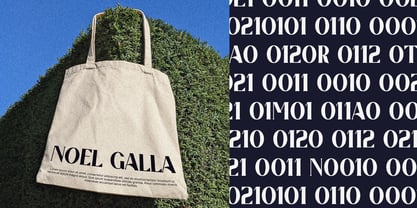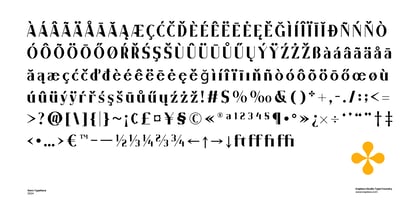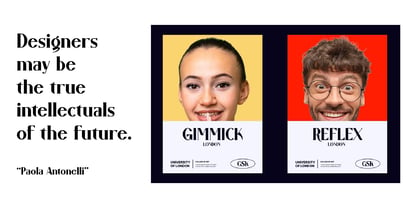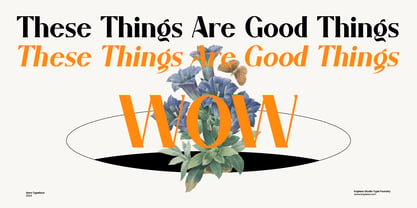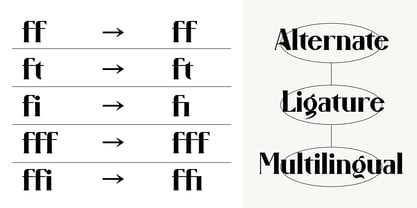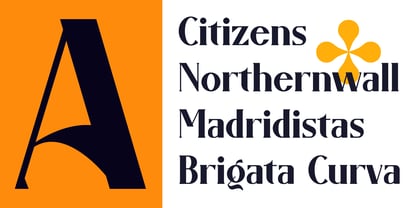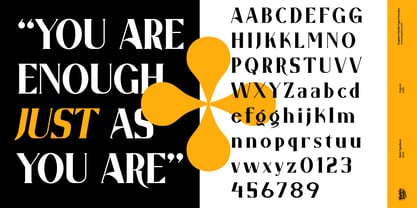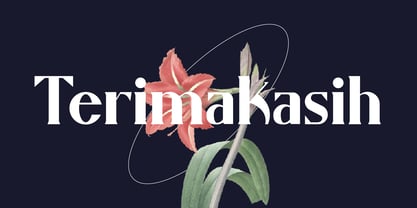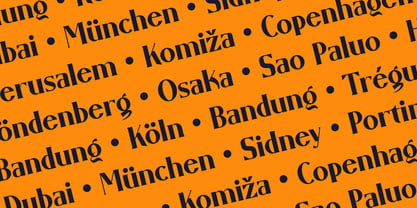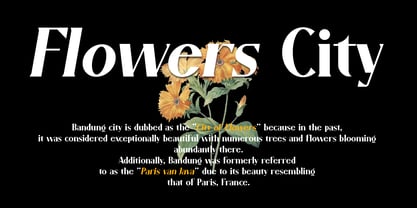
Garo
by Koplexs Studio
The Garo Font Family was designed by Ahmad Muslimin and published by Koplexs Studio. Garo contains 2 styles and family package options. More about this family
Garo Font – Elegant Modern Display Font for Branding, Logo, Poster, Headline & Luxury Design
Garo Font is a sophisticated and artistic modern font designed with a strong editorial personality and elegant high-contrast letterforms. Inspired by contemporary typography trends, luxury branding, and experimental display aesthetics, Garo Font delivers a unique balance between classic serif elegance and bold modern expression. Available in both Regular and Italic, this typeface is crafted to create eye-catching visuals for premium creative projects.
With its sharp curves, stylish alternates, multilingual support, and artistic ligatures, Garo Font is perfect for designers who want a cool font that feels luxurious, expressive, and highly memorable. The italic style adds dynamic movement and dramatic contrast, making every composition feel premium and fashion-forward.
Whether you are building a luxury brand identity, creating bold headlines, or designing artistic editorial layouts, Garo Font offers a timeless yet modern visual impact that stands out beautifully across print and digital media.
Perfect For
Garo Font is highly versatile and suitable for:
• Luxury Branding
• Fashion Branding
• Editorial Design
• Magazine Layouts
• Logo Design
• Packaging Design
• Social Media Graphics
• Website Headers
• Poster Design
• Album Covers
• Product Packaging
• Book Covers
• Advertising Campaigns
• Modern Invitations
• Creative Headlines
Designers: Ahmad Muslimin
Foundry: Koplexs Studio